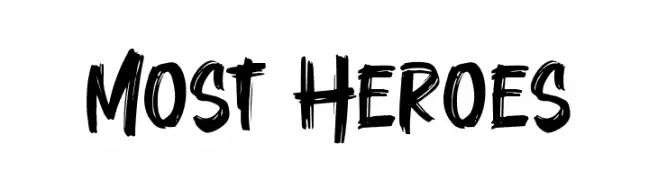
A flowing, cursive font with a handwritten style and elegant, connected characters.
A playful, handwritten font with a casual and friendly style.
A playful, bold, and rounded font with a hand-drawn feel.
A bold, decorative font with a hand-drawn, textured appearance.
A bold, decorative font with a cross-hatched, hand-drawn style.
A bold, energetic script font with a brush-like appearance.
A bold, expressive script font with high contrast and fluid strokes.
A lively, cursive font with bold, flowing strokes and a playful elegance.
A bold, brush-style font with a dynamic, hand-drawn aesthetic.
A modern, geometric font with clean lines and a minimalist style.